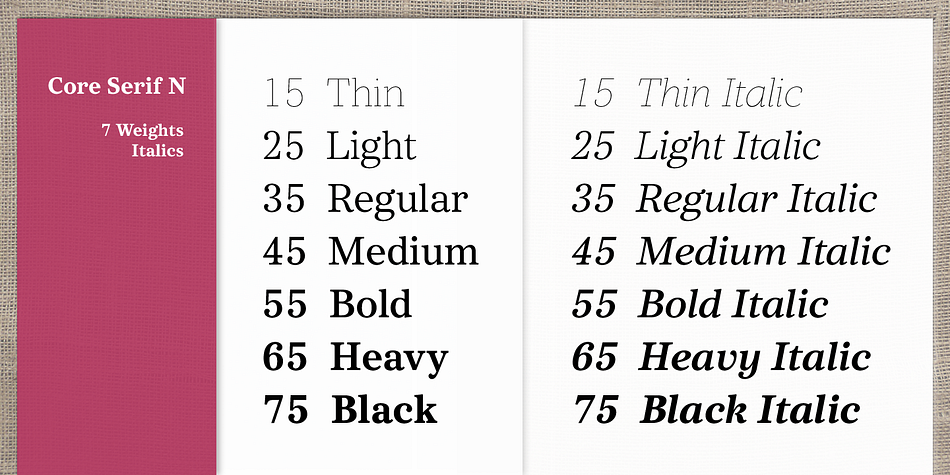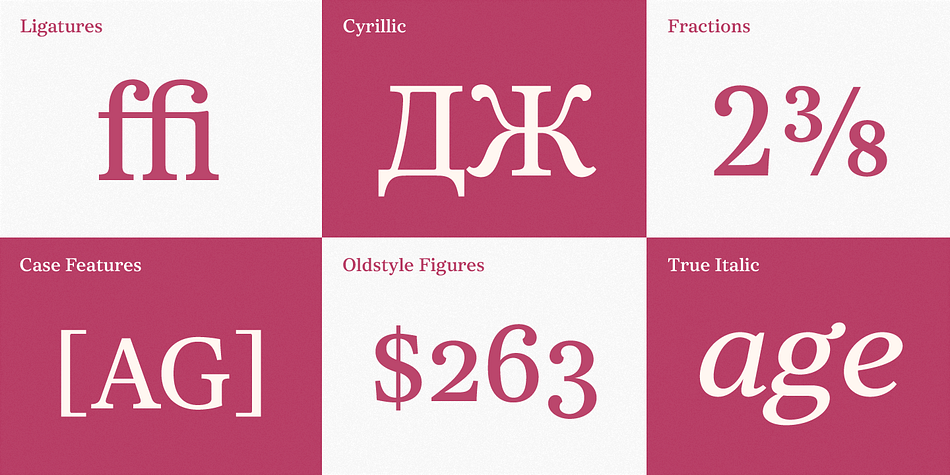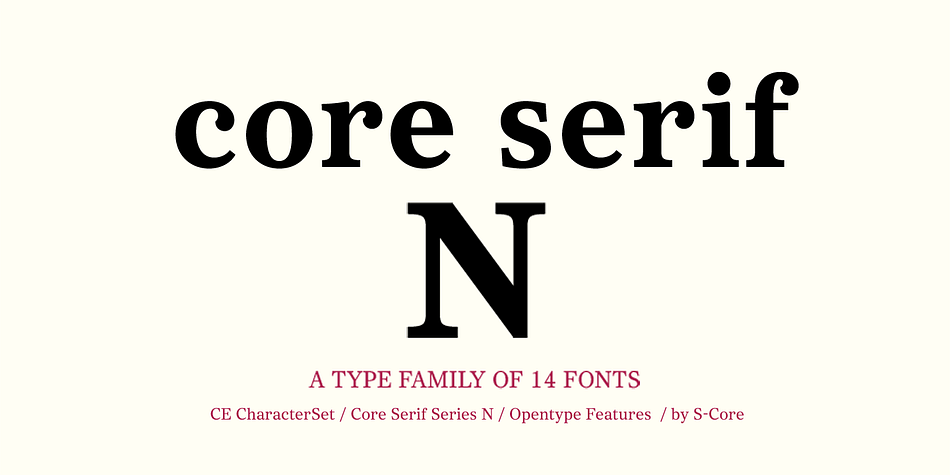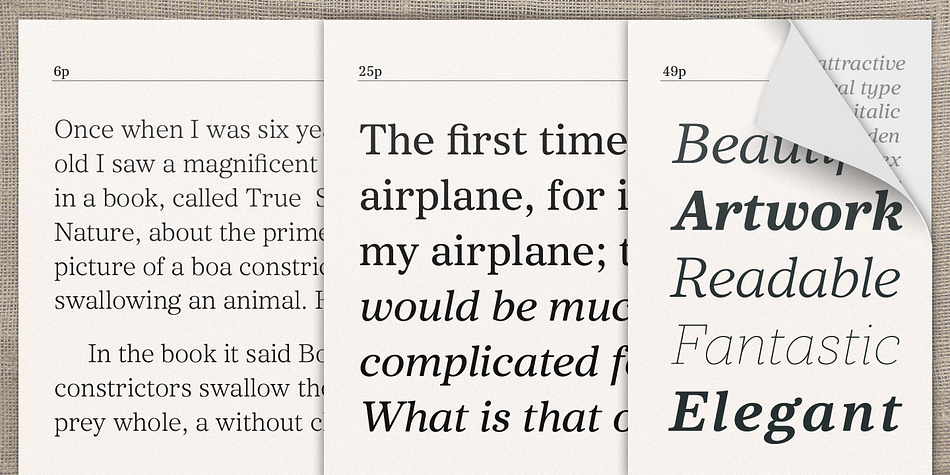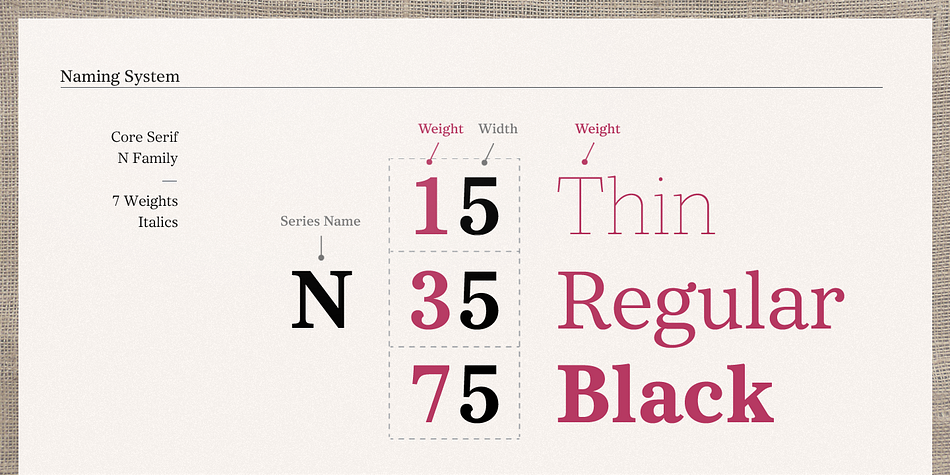
Core Serif N is a slab serif font family. This typeface has fourteen styles and was published by S-Core.
Core Serif N is a modern serif family with neutral design elements.
Letters in the Core Serif N has designed with large x-heights and simple serifs for legibility at small sizes.
The spaces between individual letter forms are precisely adjusted to create the perfect typesetting.
Core Serif N Family consists of 7 weights (Thin, Light, Regular, Medium, Bold, Heavy, Black), and Italics for each format.
Core Serif N Thin is designed such as a frame of Core Serif N Family, so its serif shapes are slightly different with other weights’.
But all weights of Core Serif N work in harmony because they are sharing the same structure.
It supports complete Basic Latin, Cyrillic, Central European, Turkish, Baltic character sets.
Each font includes support for proportional figures, tabular figures, oldstyle figures, numerators, denominators, superscript,
scientific inferiors, subscript, fractions, and case features.
We highly recommend it for use in books, magazines, editorial, and publishing as well as logo, branding, and so on.